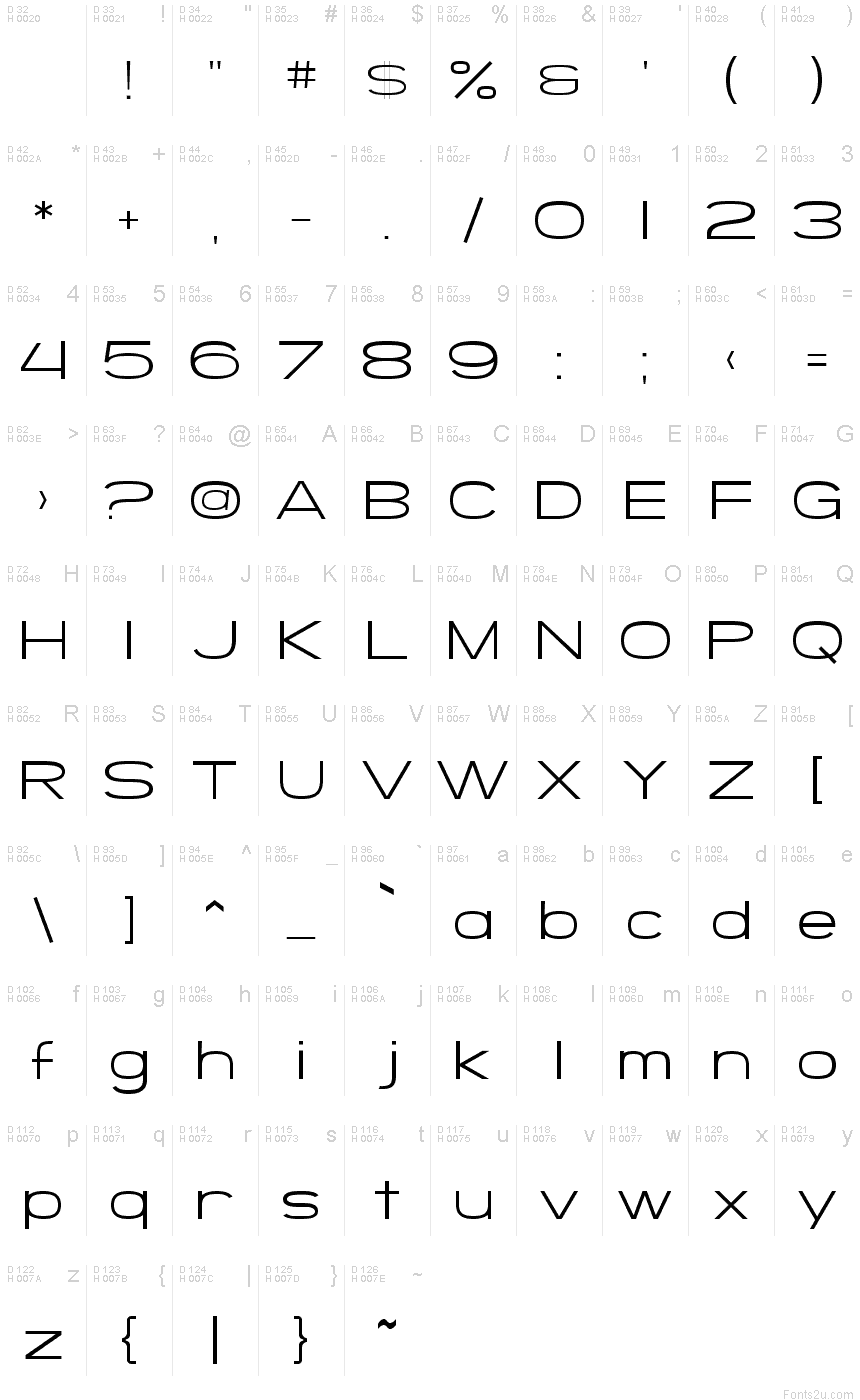
SF Grandezza Light
SF Grandezza Light by ShyFoundry is a free light geometric sans serif with a sleek late-modern tone. The letters feel airy and deliberate, built from broad curves, long horizontal runs, and clean circular forms that give the whole font a calm, architectural rhythm.
It works well for fashion branding, gallery posters, magazine cover lines, title cards, and pared-back packaging where a little space around the letters can do the work. As a free font, it also suits minimalist logos, short web headers, and monograms, especially when you want a refined sans that looks crisp without turning cold.